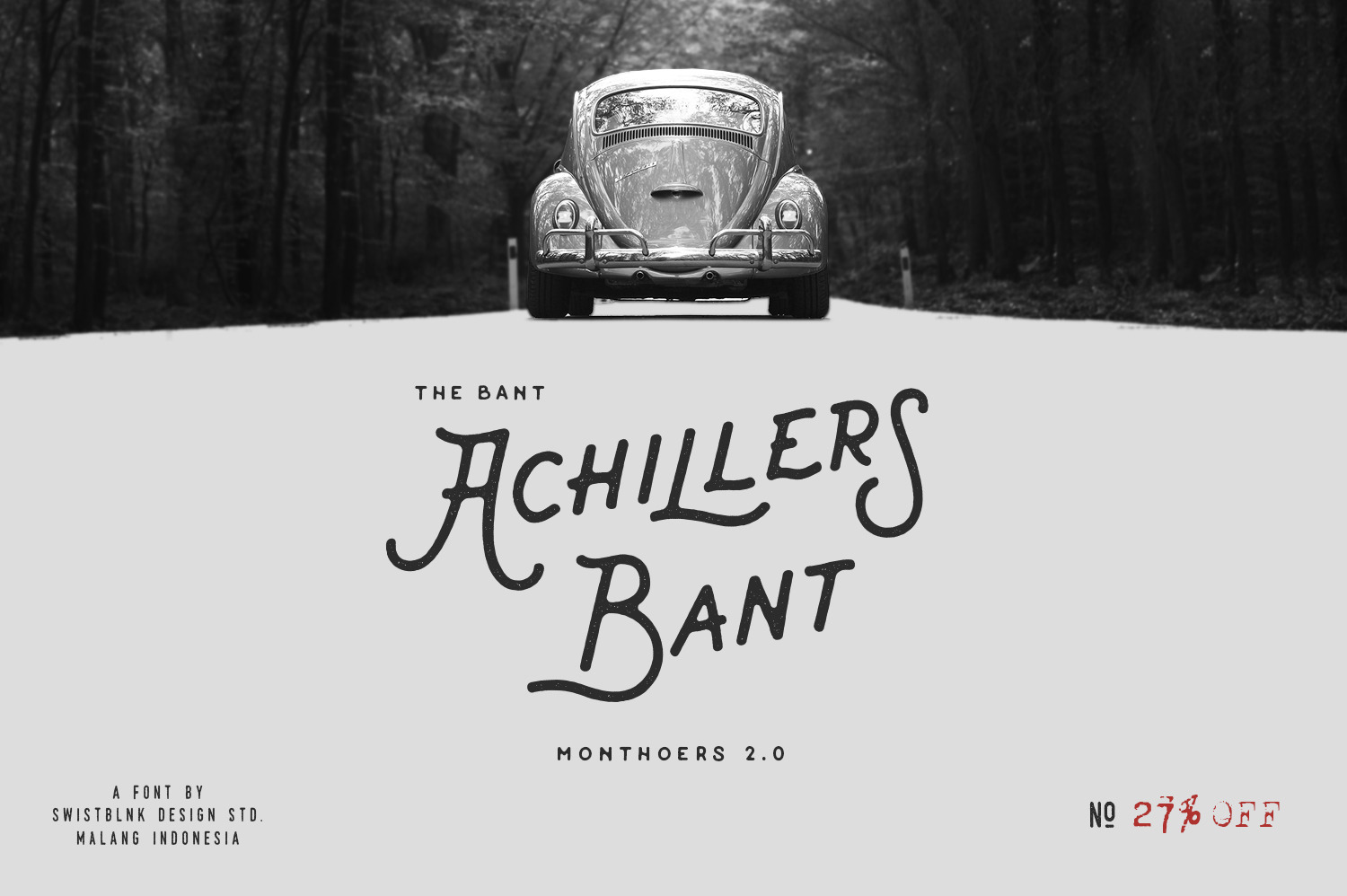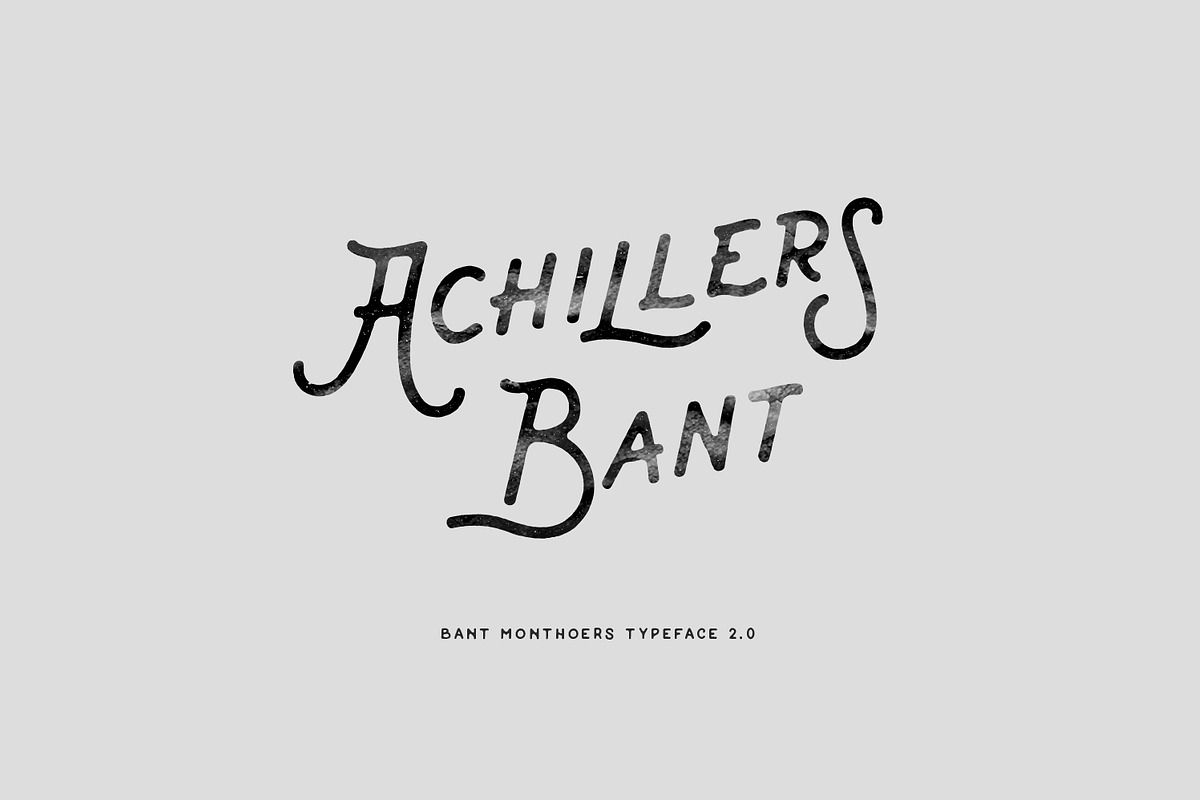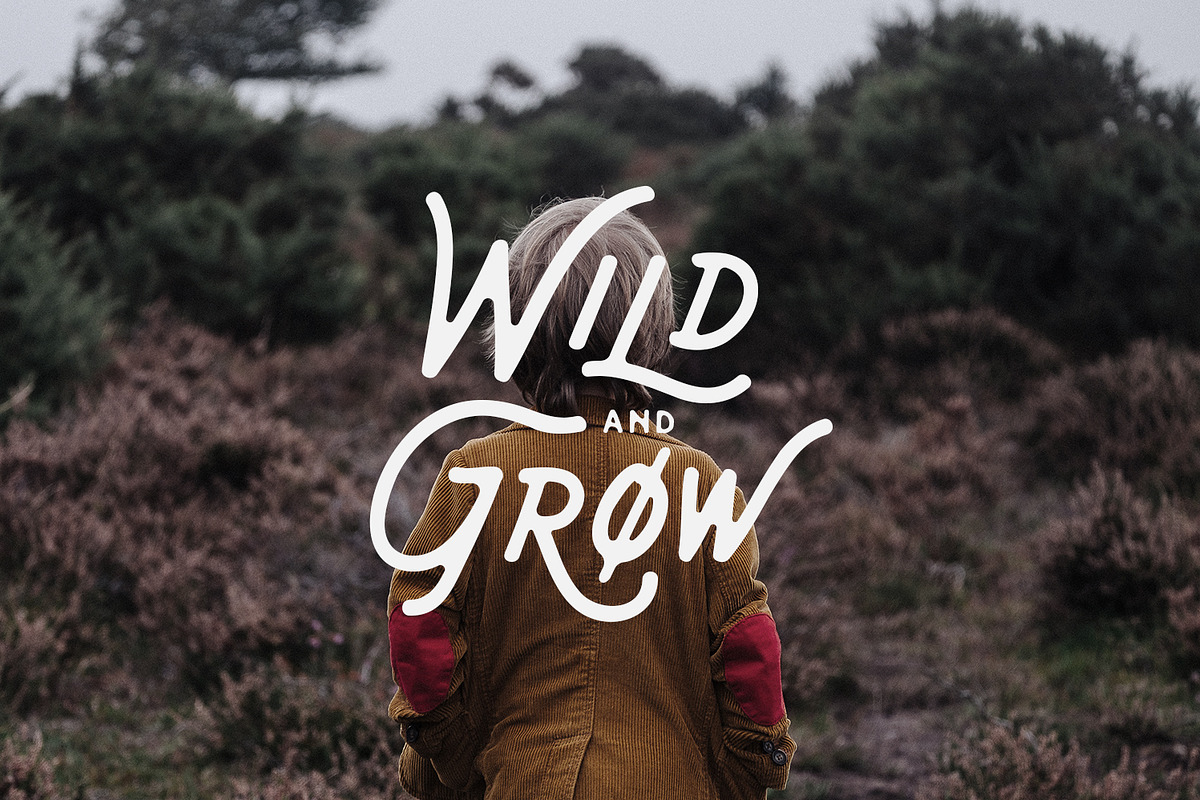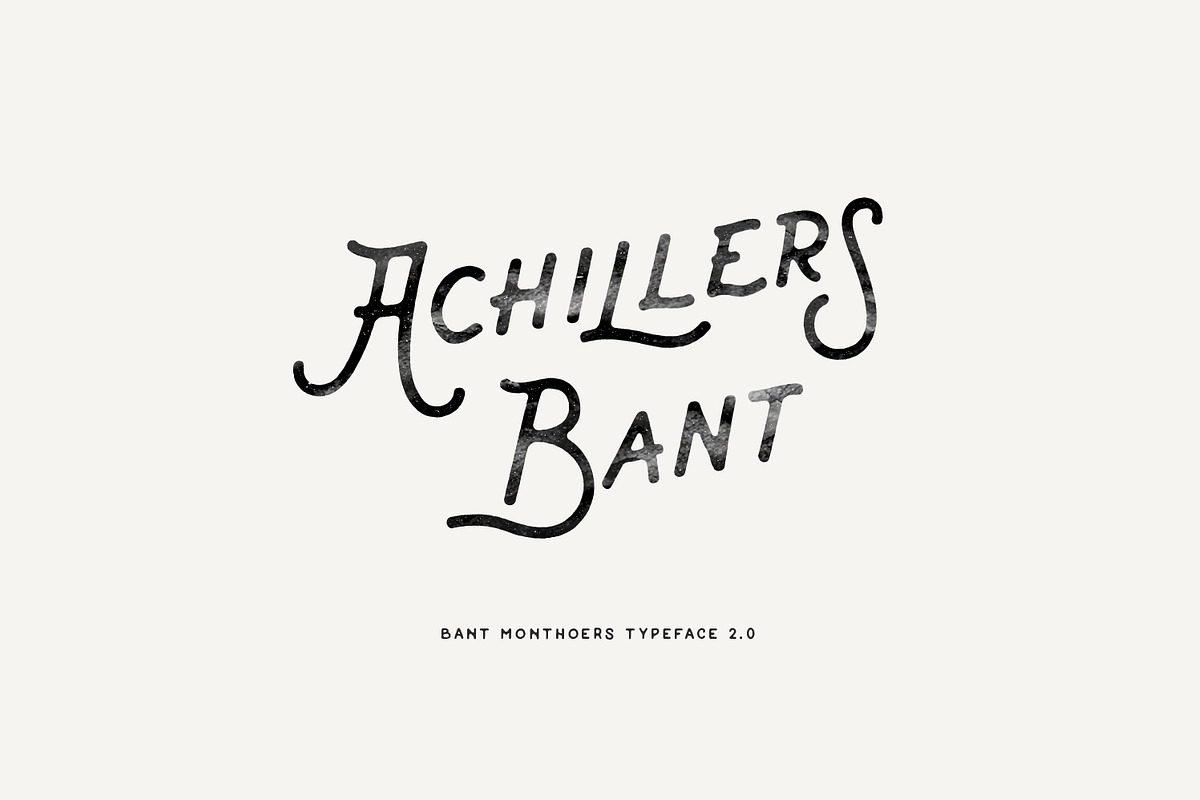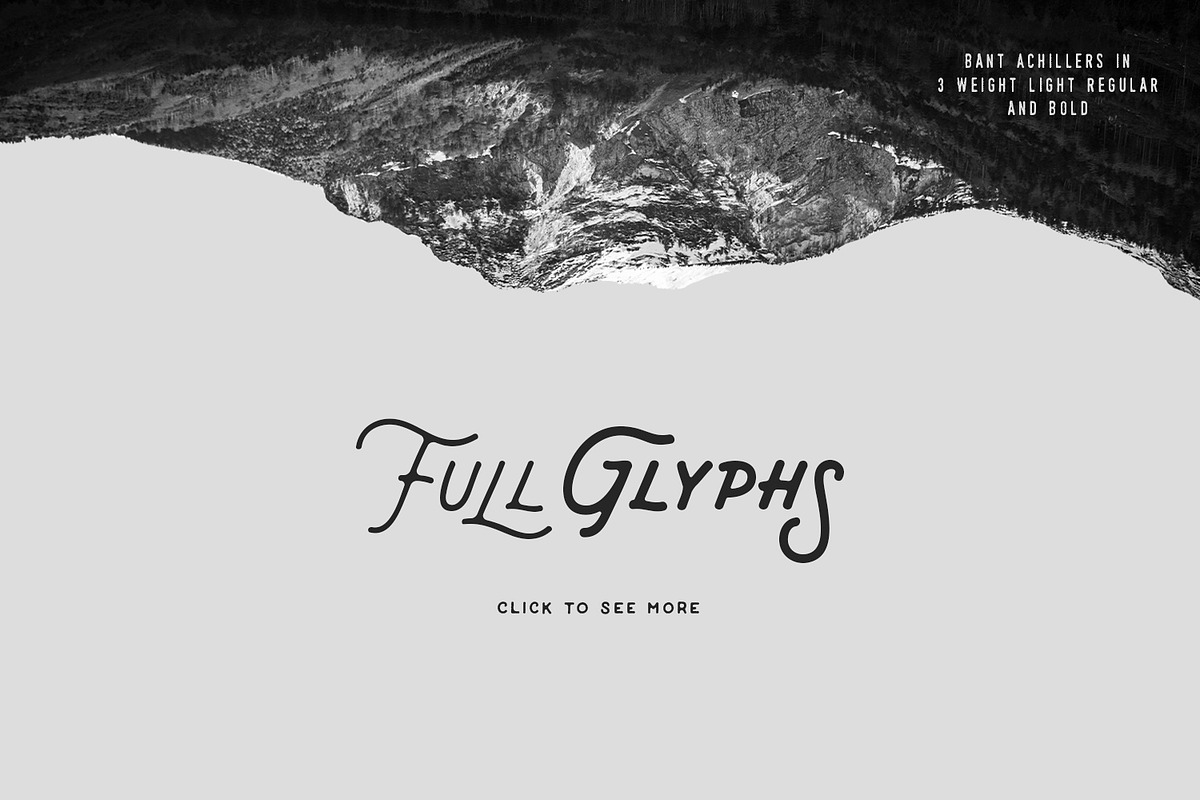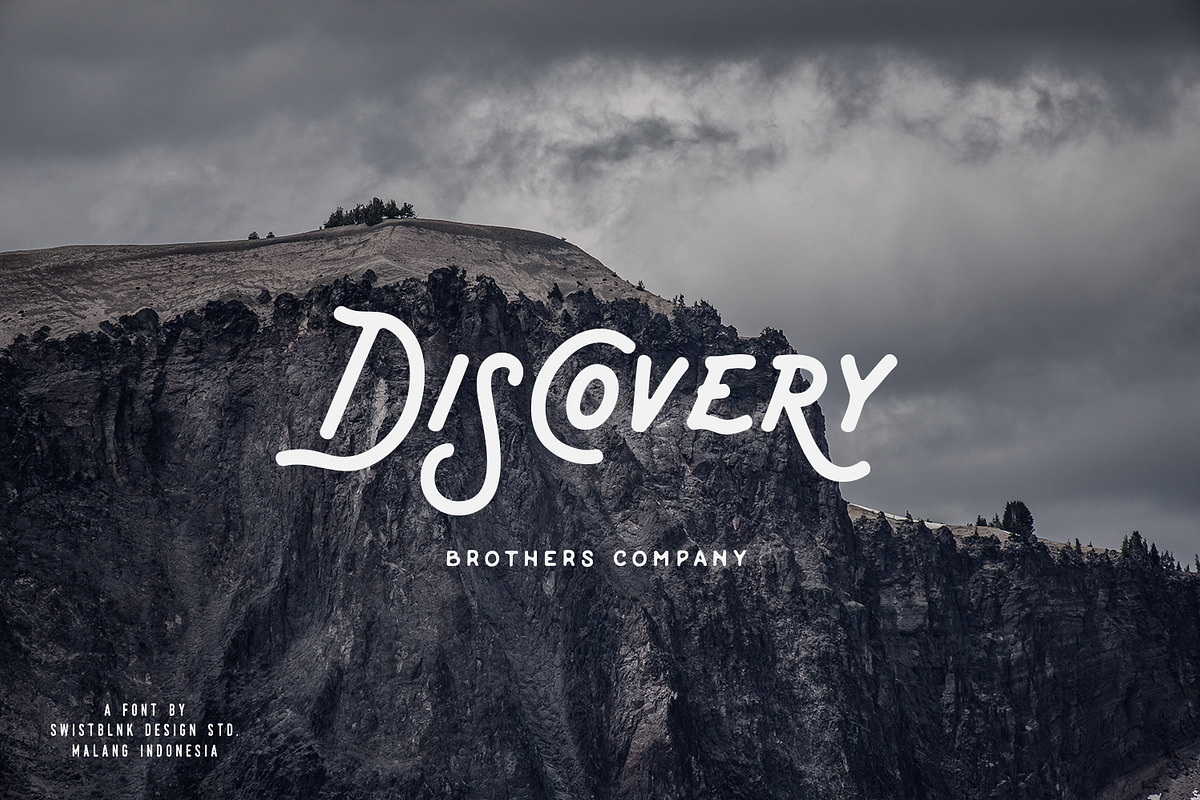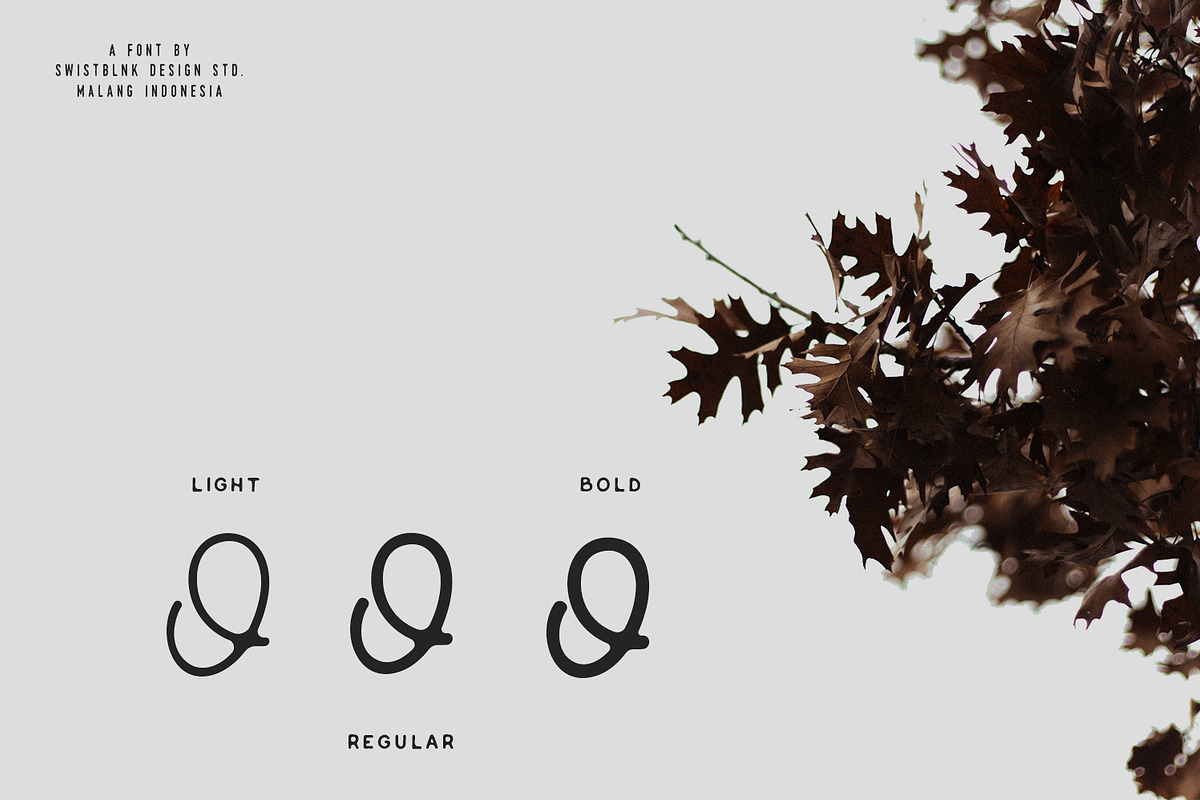
Bant Achillers Typeface
Bant Achillers is vintage monoline display font with unique glyph combination to create fresh look on your project. This font come with tons of cool Alternates Characters and OpenType Features.
Bant Achillers Features :
- Stylistic Set
- Titling Alternates
- Suitable for Headlines, Logotypes, Signs, Posters, Letterhead, T-Shirt and many more.
There are more than 200 glyphs in the font including Stylistic Sets, Ligatures, Titling Alternates etc. Stylistic Sets and Titling Alternates in some characters that allows you to mix and match pairs of letters to fit on your design.